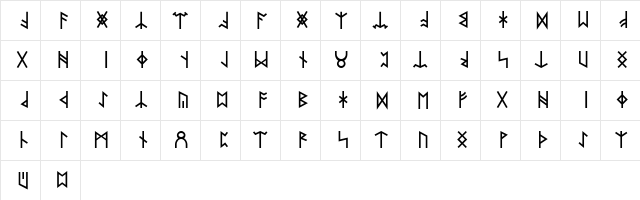
FuthorkASBold Medium
| Foundry | Copr. C. J. Weigand |
Design Context for FuthorkASBold Typeface
FuthorkASBold is a composed and adaptable typeface that performs quietly and consistently across a wide range of design contexts. Its bold stroke weight gives it real presence on the page.